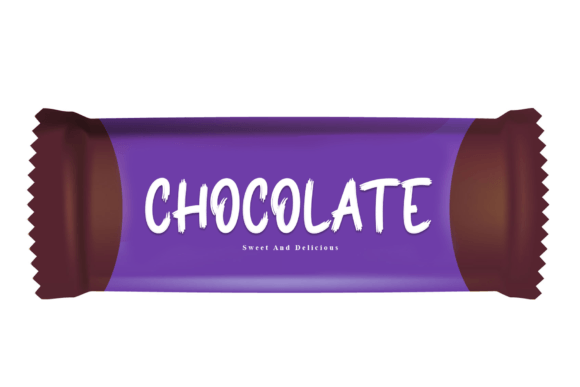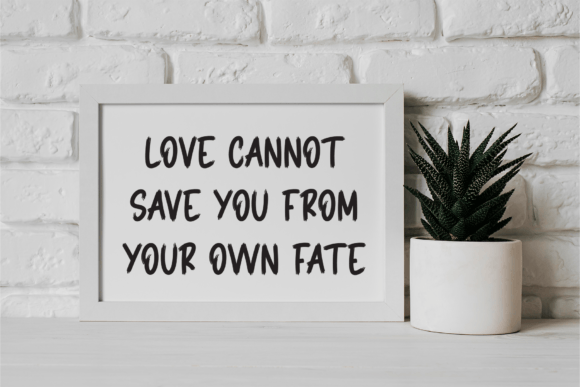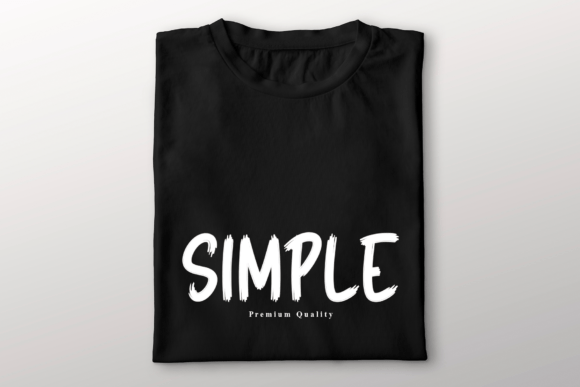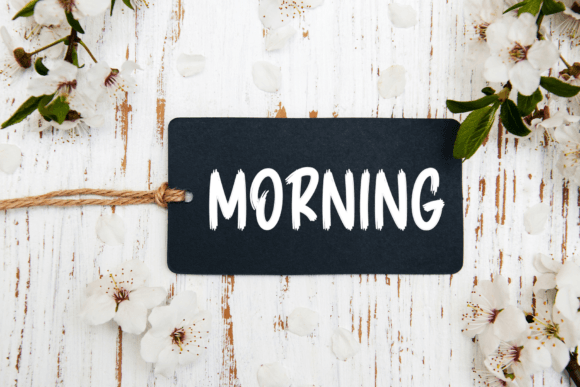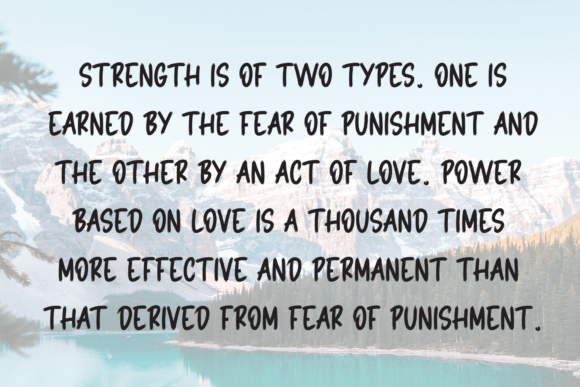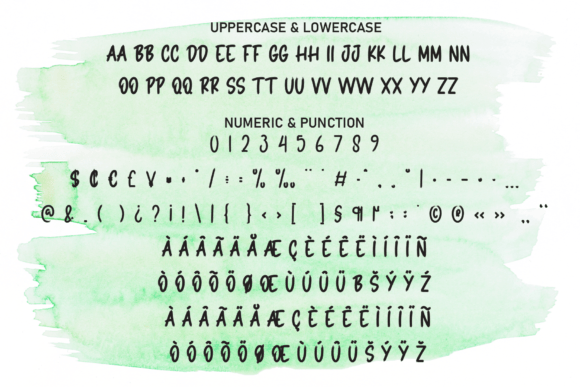
The Perfect Brush for Your Monday Motivation
Have you ever stared at a blank page, struggling to find the perfect font to bring your design to life? I know I have. It’s that moment of frustration when you desperately need a spark of inspiration to get your creative juices flowing. And then, just like magic, you stumble upon the perfect font – one that speaks to you, and makes your design shine.
Enter the enchanting Brush Monday Font, a beautiful display font that’s as elegant as it is versatile. With its timeless style, this font is perfect for designers looking to add a touch of sophistication to their projects. Whether you’re working on a branding campaign, a packaging design, or a stunning poster, the Brush Monday Font is sure to impress.
Key Features of Brush Monday Font
- Font Family: Brush Monday
- Unique Characteristics: Hand-drawn brush script with a natural, organic feel; perfect for creative and artistic projects
Designer Review: Brush Monday Font
At first glance, Brush Monday Font seems like a charming addition to any design project. ✨ Its playful, handwritten feel immediately draws the eye and adds a touch of whimsy to any text. The font’s high contrast between thick and thin strokes creates a visually appealing aesthetic that’s perfect for headings and titles.
The Brush Monday Font is also highly versatile, working well in a variety of contexts, from wedding invitations to children’s book illustrations. ✨ The font’s casual, approachable vibe makes it an excellent choice for designs that require a sense of friendliness and approachability.
While Brush Monday Font has its strengths, there are some limitations to consider. ⚠️ For one, the font’s lack of consistency in stroke width can sometimes make it difficult to read. This is particularly true for longer blocks of text, where the varying stroke widths can create a sense of visual discomfort.
- May not be suitable for large blocks of text
- Can be difficult to read in certain contexts
- Lack of consistency in stroke width
Overall, Brush Monday Font is a charming and versatile font that’s perfect for adding a touch of personality to your designs. While it may have some limitations, its unique aesthetic and high contrast strokes make it a great choice for a wide range of projects.
Tips for Getting the Most Out of Brush Monday Font
To get the most out of Brush Monday Font, use it for creative and artistic projects such as:
– Handwritten quotes and graphics
– Watercolor-inspired designs
– Custom typography for branding and logos
Alternatives to Brush Monday Font for Designers
Playfair Display is a high-end script font perfect for creating elegant, sophisticated designs. It is ideal for use in invitations, luxury brands, and high-end publications.
Playfair Display has a more refined and luxurious feel compared to Brush Monday Font, making it suitable for premium brands and high-end designs.
Great Vibes is a modern script font with a fun, casual feel. It is perfect for use in digital designs, such as social media posts, blog titles, and advertising campaigns.
Great Vibes is more playful and laid-back compared to Brush Monday Font, making it suitable for creative and trendy designs.
Carolyna Pro is a elegant script font with a sophisticated and refined feel. It is ideal for use in high-end designs, such as luxury brands, fashion publications, and weddings.
Carolyna Pro has a similar luxurious feel to Brush Monday Font, but with a more modern and sleek design.
What is the recommended font size and line height for using the Brush Monday Font?
The recommended font size for the Brush Monday Font is between 12 and 24 points, depending on the context in which it will be used. For body text, a line height of 1.2 to 1.5 times the font size is recommended. For headings, a line height of 1.5 to 2 times the font size is recommended. Experiment with different font sizes and line heights to find the optimal combination for your design.